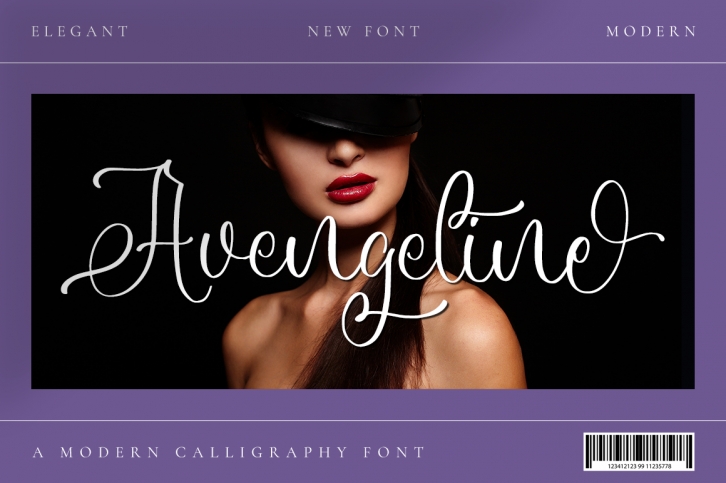
Avengeline is a lovely and delicate script font that exudes elegance and class. This font is PUA encoded which means you can access all of the amazing glyphs and ligatures with ease!